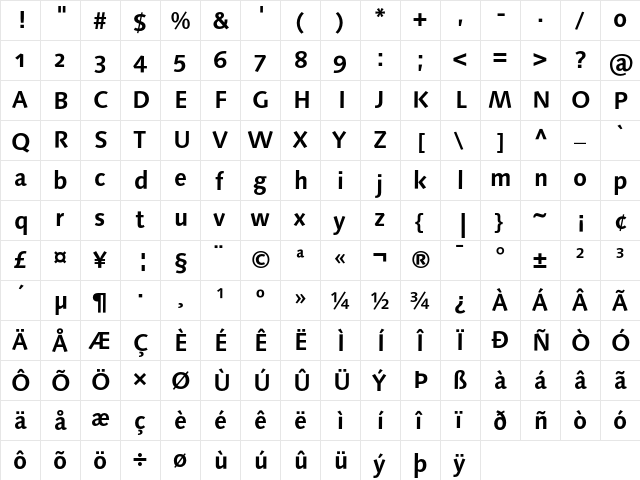
LinotypeSyntaxOsF Bold Font Preview
LinotypeSyntaxOsF Bold
LinotypeSyntaxOsF Bold Font Details
Design Context for LinotypeSyntaxOsF Typeface
LinotypeSyntaxOsF takes a measured approach to typography — its balanced proportions and neutral character make it a reliable workhorse for both digital and print work. The heavy weight commands attention and anchors typographic hierarchies.